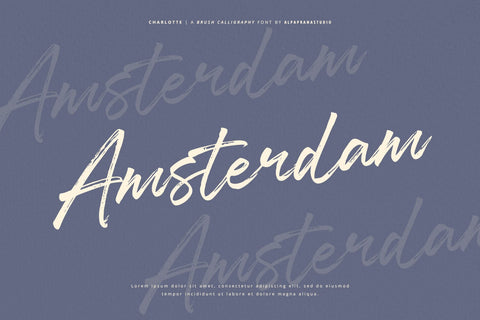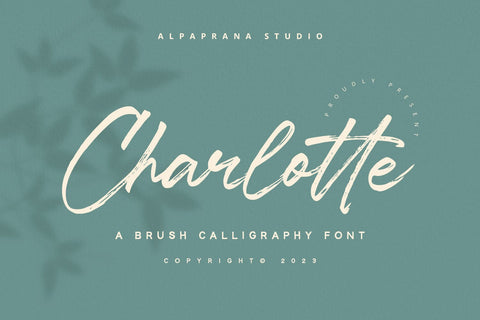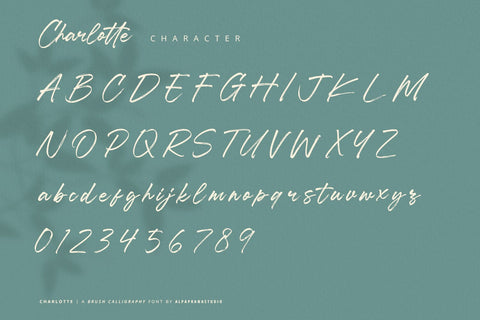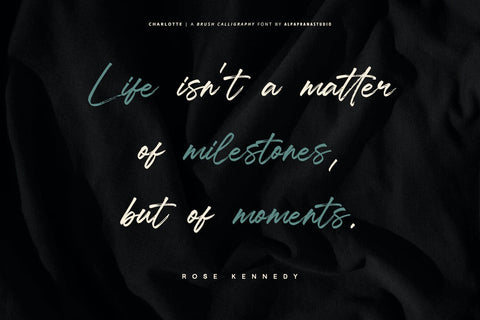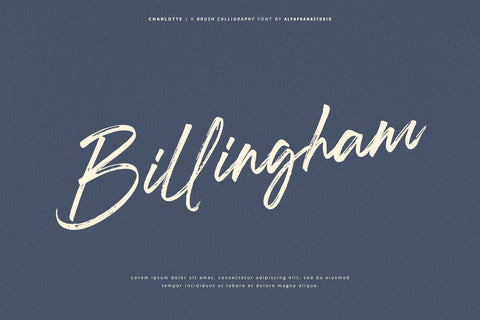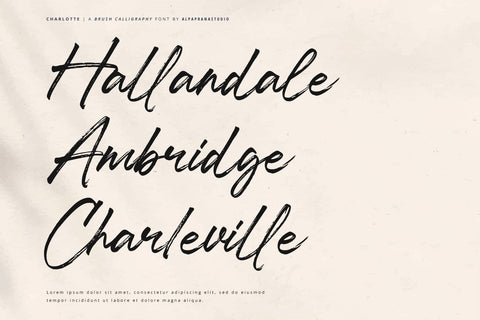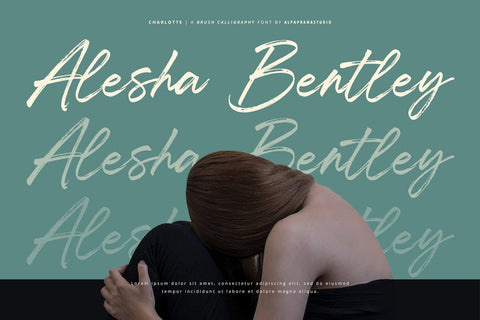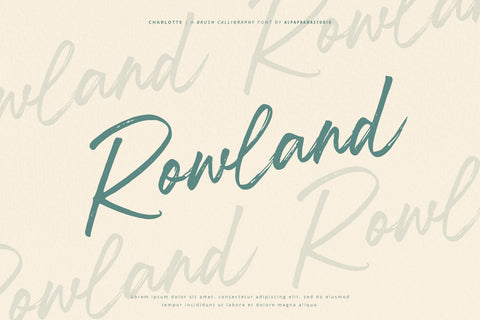
Charlotte - Brush Calligraphy Font
Charlotte is a brush calligraphy font with natural and modern feels. It will be perfectly used for Branding, Logo Design, Lettering, Logotype, Clothing, Poster, magazine, packaging, posters, shopping bags, t-shirts, book covers, photography, special events and other design project.